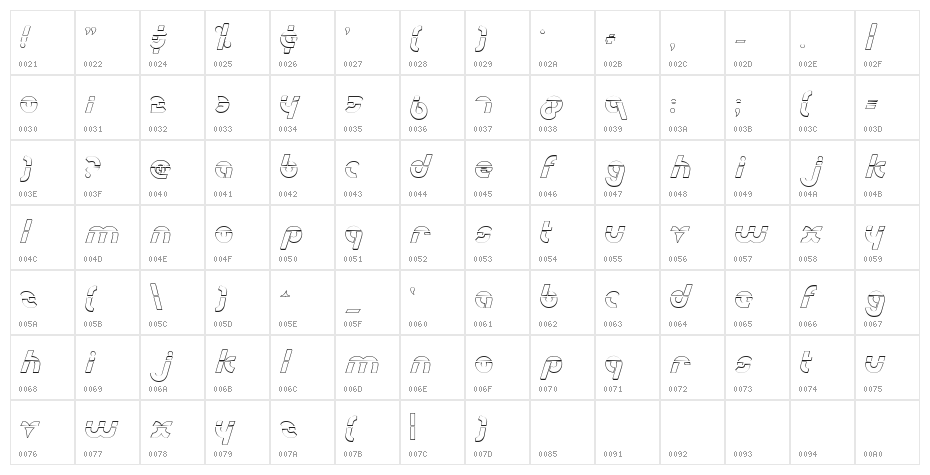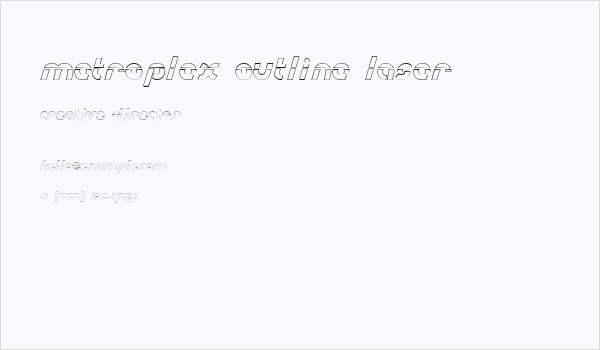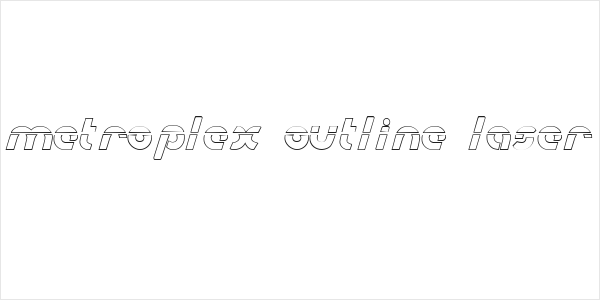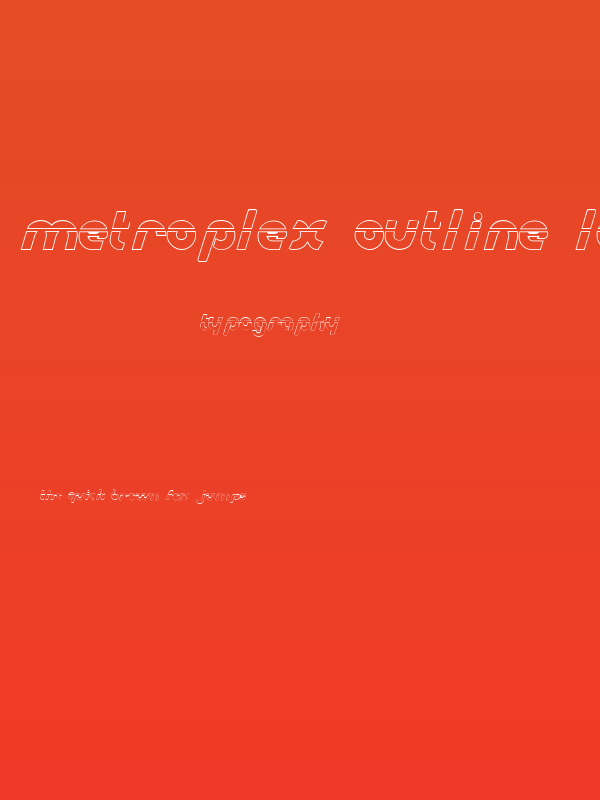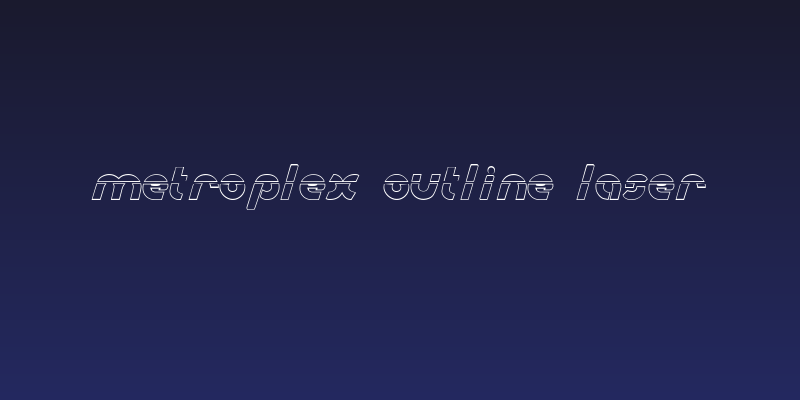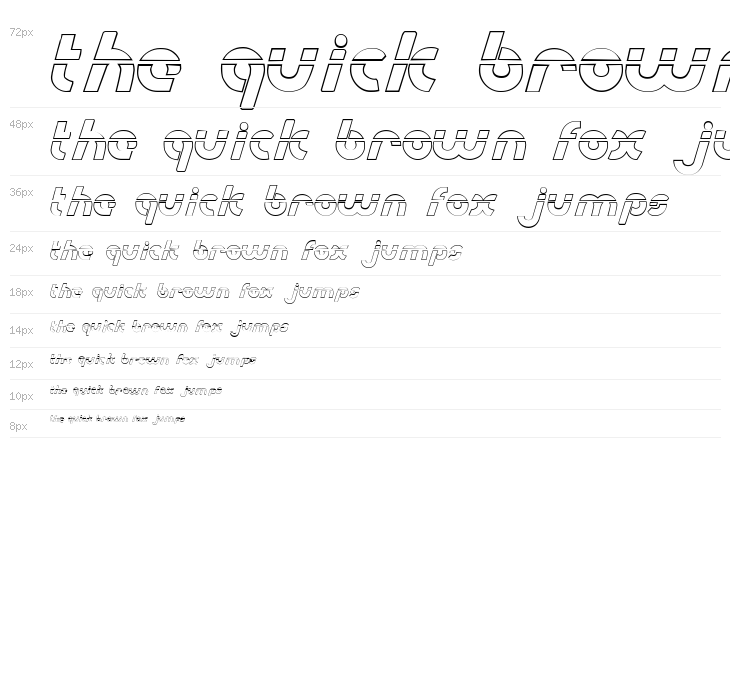
Metroplex Outline Laser Font
Metroplex Outline Laser Description
This font features a futuristic and geometric outline style, characterized by clean lines and a laser-cut appearance. The letters are formed with a consistent stroke width, creating a cohesive and modern look. The uppercase and lowercase letters share a similar design, with rounded edges and a uniform height, giving the font a balanced and harmonious feel. The numerals and special characters maintain the same stylistic approach, ensuring versatility across different uses. This font's unique outline design makes it stand out, ideal for projects that require a contemporary and tech-inspired aesthetic.
| Proposed Projects | Ideal for tech-themed designs, futuristic branding, digital artwork, and modern posters. |